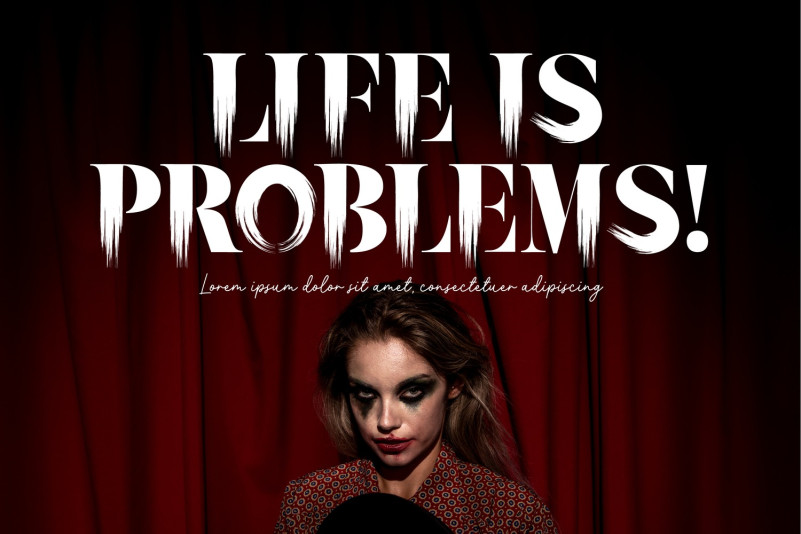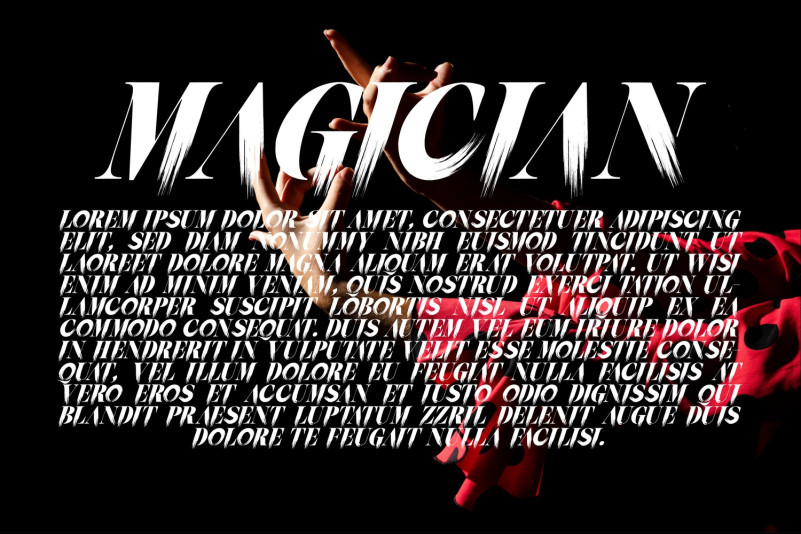
Drama Genre Font
Drama Genre Font – Serif Brush Font is entirely hand-painted serif. A raw, bold, condensed font, with brushy imperfections and an earthy realism. With its detailed brushmarks it is designed to go big and bold. This font is an uppercase font and it offers alternate glyphs as lowercases. Enjoy the natural texture font which makes an eye catching statement – perfect for use in posters, headlines, advertisements & other bold typographic pieces.